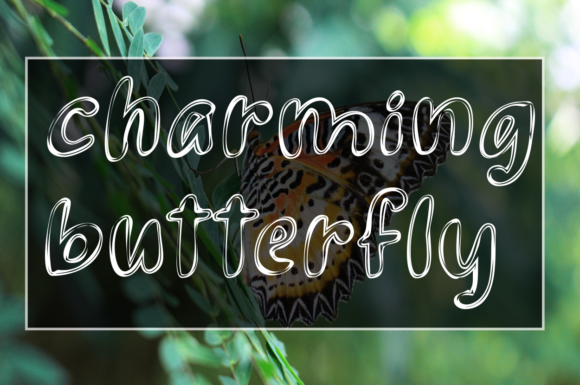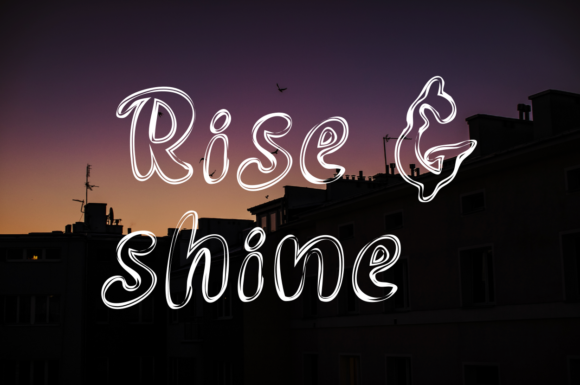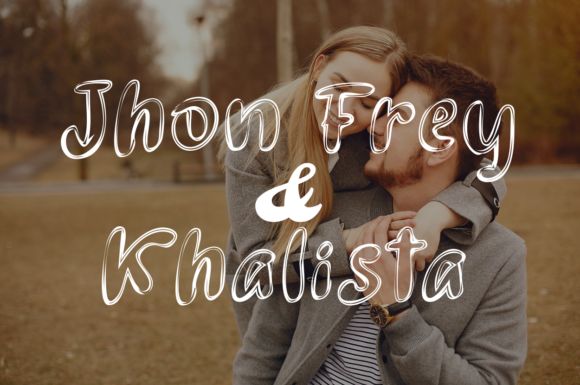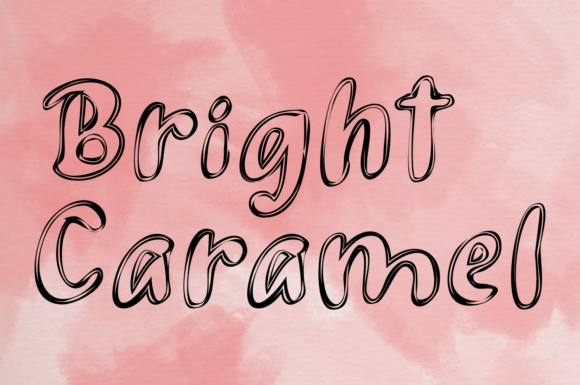
Introducing Beauty Valentyna Font: Elevate Your Designs with a Fun, Bold, and Trendy Touch
Are you tired of using the same old fonts in your designs? Do you want to add a touch of personality and whimsy to your projects? Look no further than the Beauty Valentyna Font! This fun, bold, and trendy outlined display font is perfect for informal or casual designs, and is sure to make them stand out from the crowd.
What is Beauty Valentyna Font?
Beauty Valentyna Font is a unique and eye-catching font that features bold, outlined letters with a playful and modern twist. Its fun and trendy design makes it perfect for a variety of design projects, from social media graphics and posters to invitations and crafts.
Key Features of Beauty Valentyna Font
- Fun and playful design: Beauty Valentyna Font features bold, outlined letters with a playful and modern twist, making it perfect for informal or casual designs.
- Trendy and stylish: This font is perfect for designers who want to stay on top of the latest trends and add a touch of style to their projects.
- Easy to read: Despite its bold and outlined design, Beauty Valentyna Font is easy to read, making it perfect for use in a variety of design projects.
- Versatile: This font can be used in a variety of design projects, from social media graphics and posters to invitations and crafts.
How to Use Beauty Valentyna Font in Your Designs
Beauty Valentyna Font is easy to use in a variety of design projects. Here are a few ideas to get you started:
- Social media graphics: Use Beauty Valentyna Font to add a touch of personality to your social media graphics, such as Facebook posts, Instagram stories, and Twitter headers.
- Posters and flyers: This font is perfect for creating eye-catching posters and flyers for events, promotions, and more.
- Invitations: Add a touch of whimsy and personality to your invitations with Beauty Valentyna Font.
- Crafts: This font is perfect for crafters who want to add a personal touch to their projects, such as handmade cards, gift tags, and more.
Tips for Getting the Most Out of Beauty Valentyna Font
Here are a few tips for getting the most out of Beauty Valentyna Font:
- Experiment with different colors: Beauty Valentyna Font looks great in a variety of colors, so don’t be afraid to experiment and find the perfect color for your design.
- Pair with other fonts: This font pairs well with a variety of other fonts, so try pairing it with a serif or script font to add some contrast to your design.
- Use it sparingly: While Beauty Valentyna Font is perfect for headlines and titles, it can be overwhelming if used too much. Use it sparingly to add a touch of personality to your design.
Beauty Valentyna Font is a fun, bold, and trendy outlined display font that is perfect for informal or casual designs. Its unique and eye-catching design makes it perfect for a variety of design projects, from social media graphics and posters to invitations and crafts. With its ease of use and versatility, Beauty Valentyna Font is sure to become a favorite among designers and crafters. So why wait? Add Beauty Valentyna Font to your design toolbox today and start creating stunning designs that stand out from the crowd!